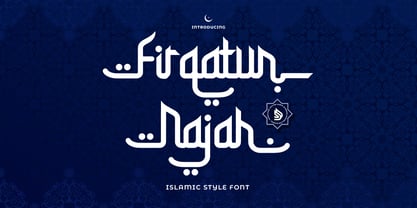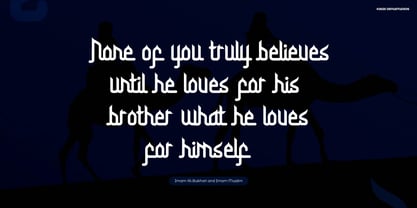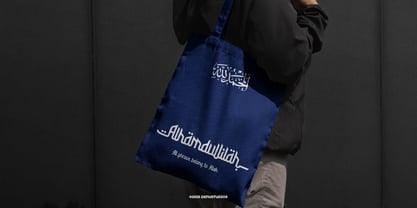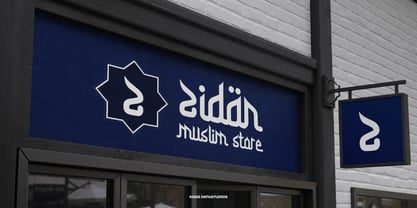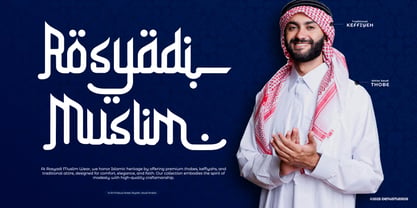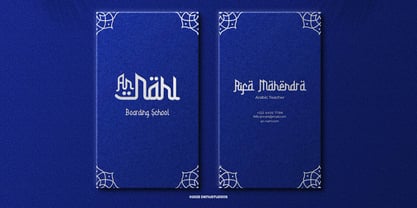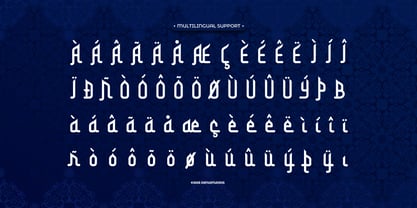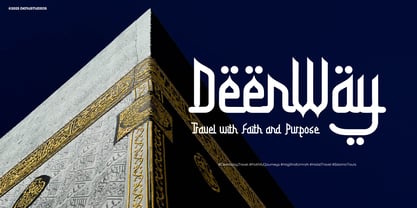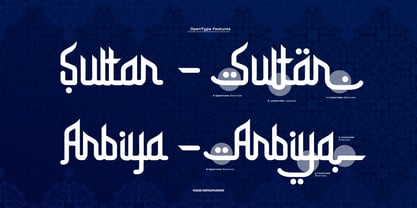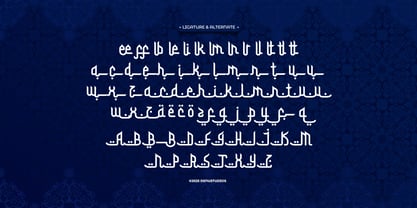
Firqatun Najah
The Firqatun Najah Font Family was designed by Dede Nugraha and published by Denustudio. Firqatun Najah contains 1 styles. More about this family
Firqatun Najah | Islamic Style Font, from Denustudios, suitable for any projects such as: logos, branding projects, homeware designs, product packaging, mugs, quotes, posters, shopping bags, t-shirts, book covers, name card, invitation cards, greeting cards, label, photography, watermark, special events, and all your other lovely projects that need Islamic Style Font a taste.
• Regular and Italic
• Standard glyphs
• Alternate and Ligature